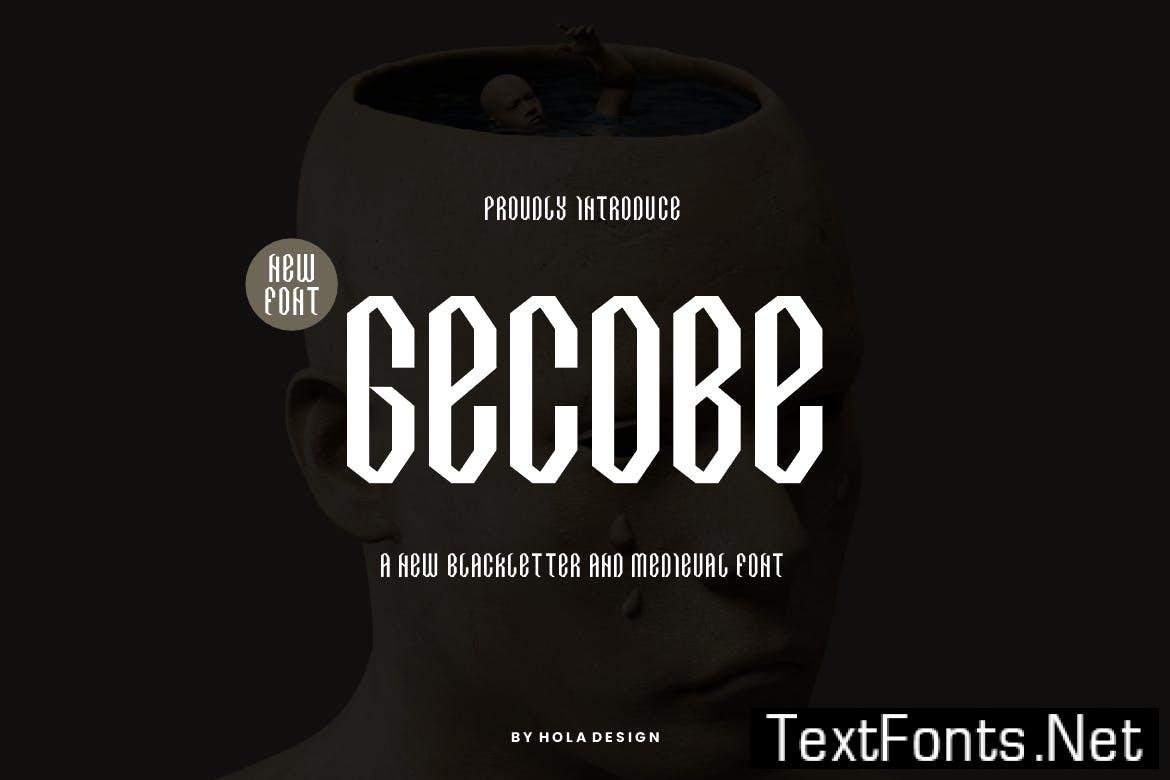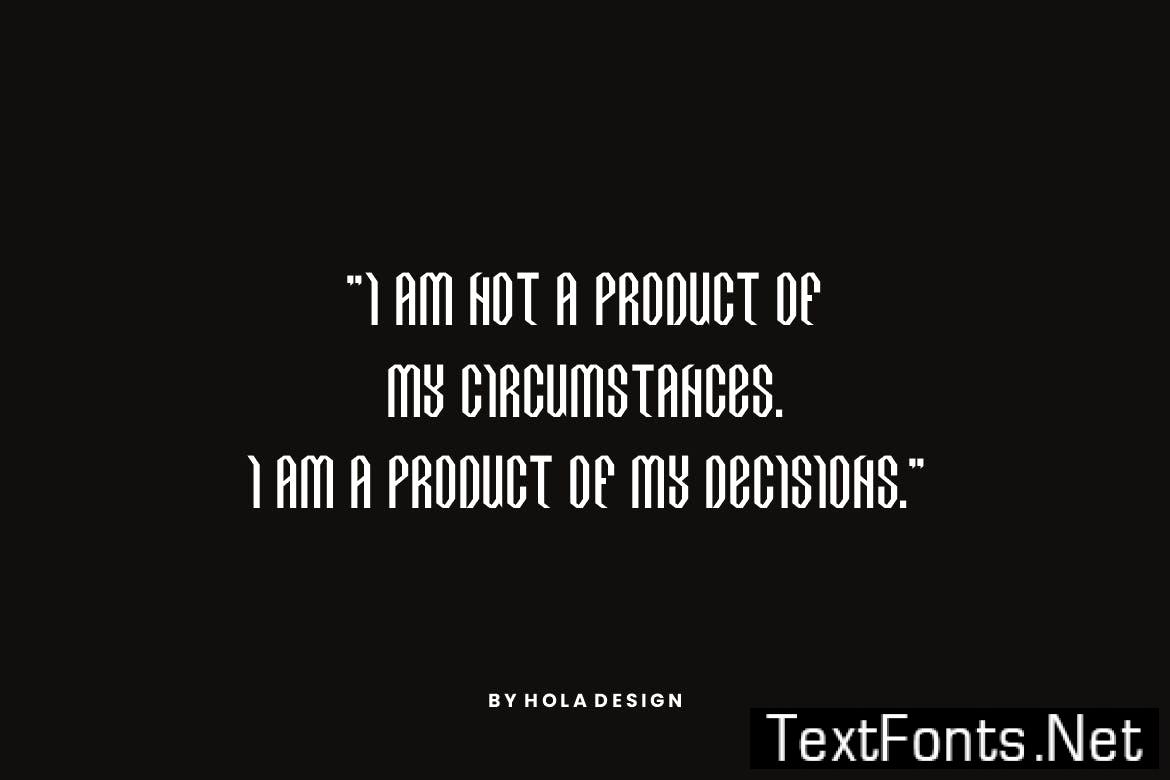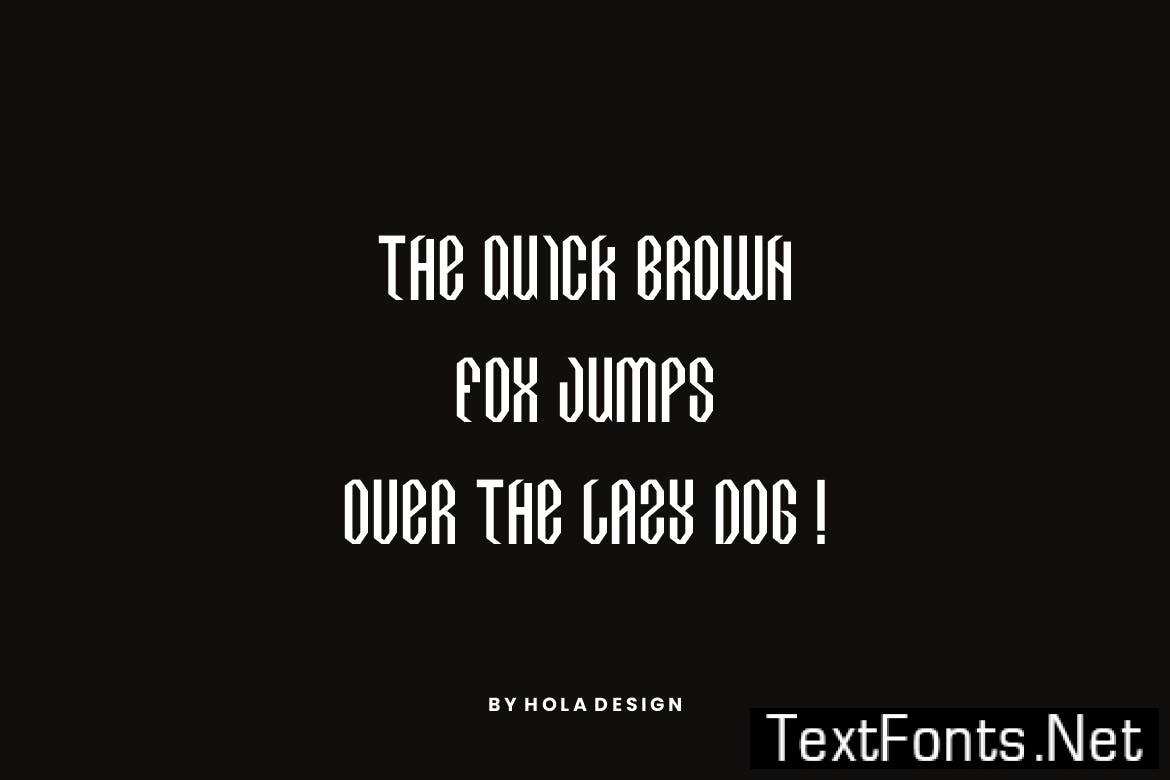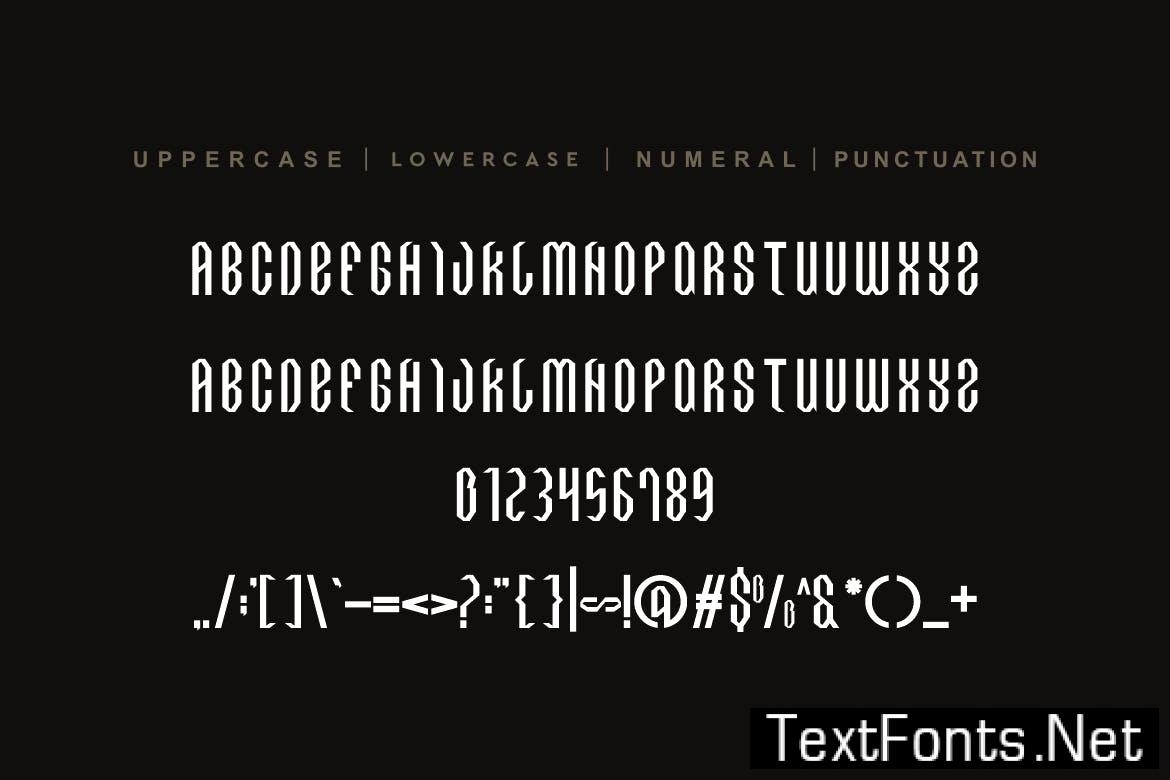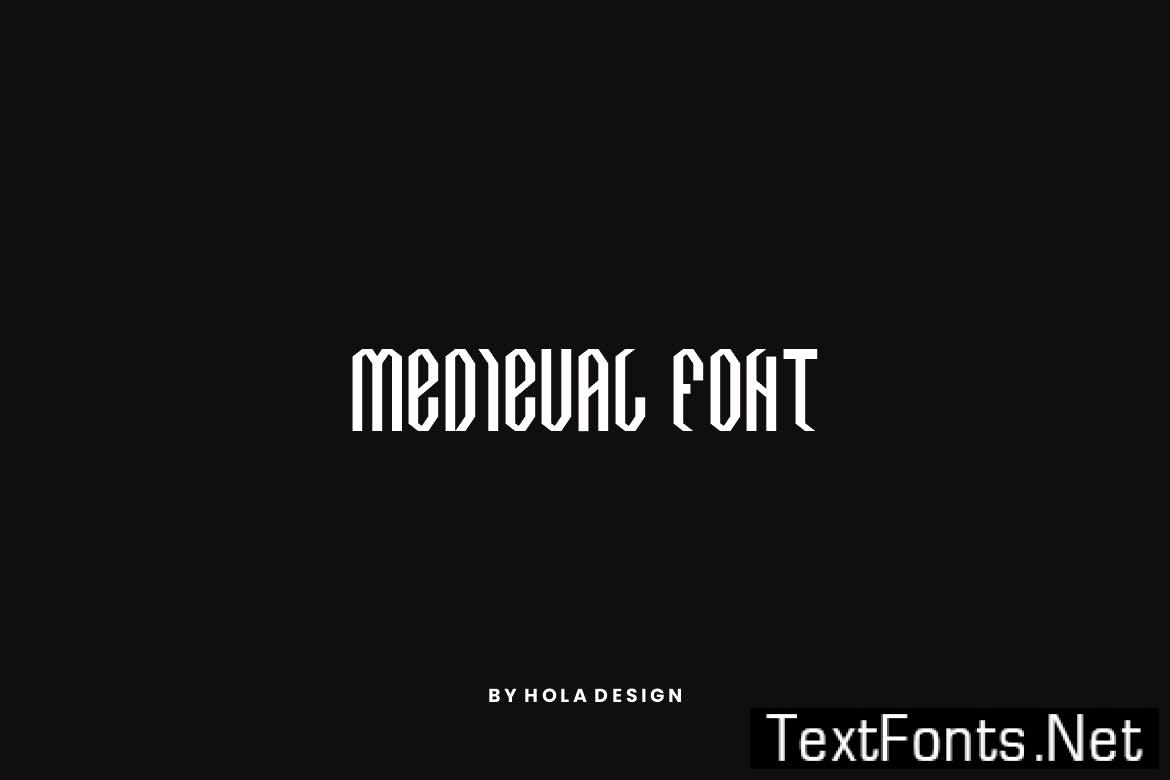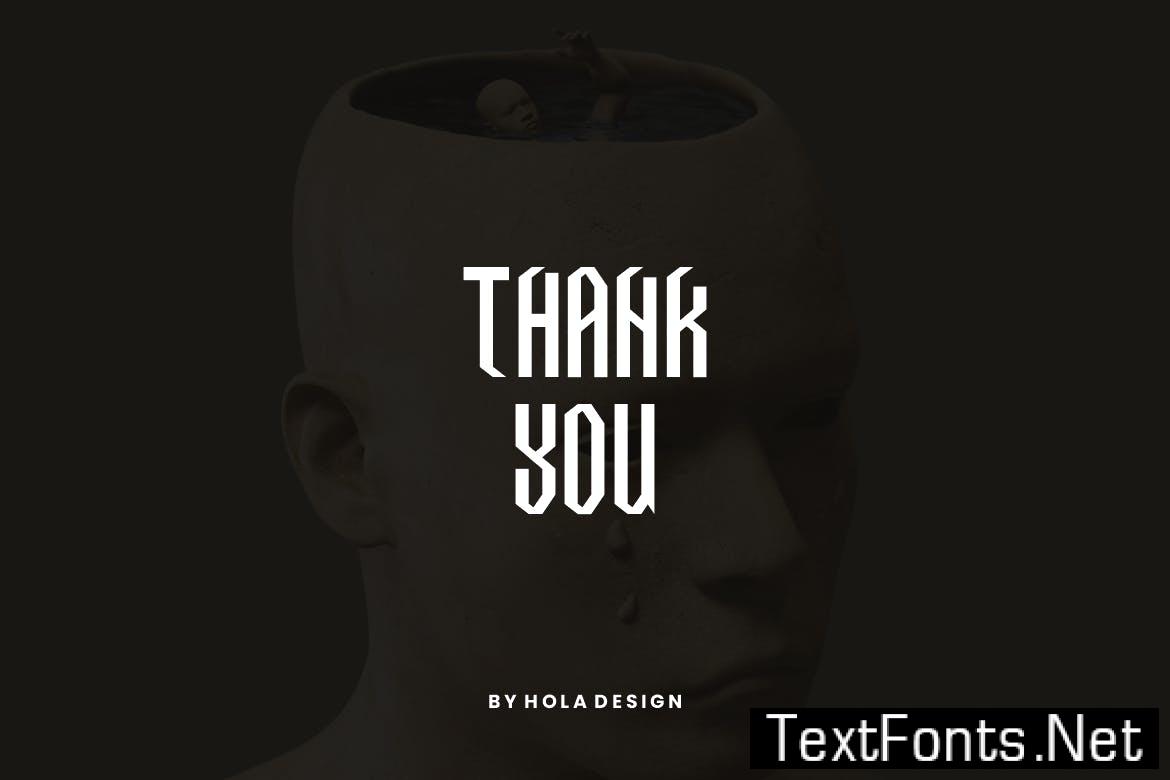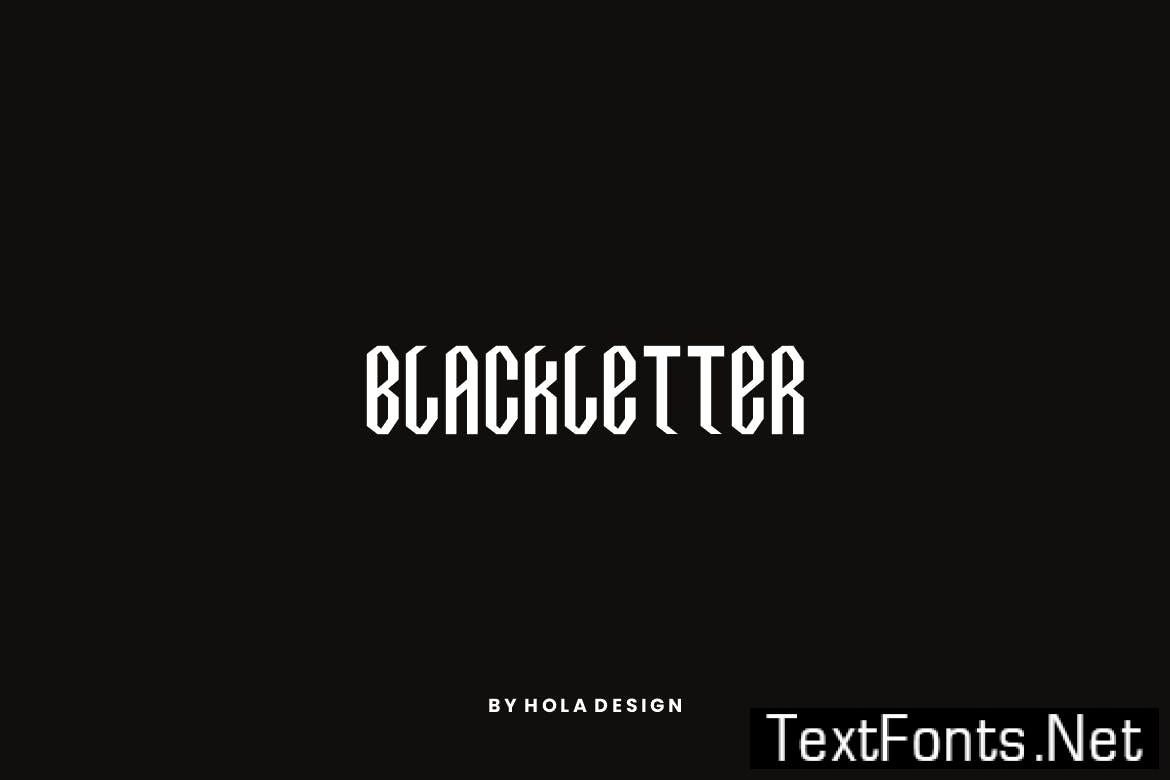
**Gecobe BlackLetter Font** Font is unique . Ready to use for your design like labeling, movie sceen, poster, movie title, gigs, album covers, logos, and much more.